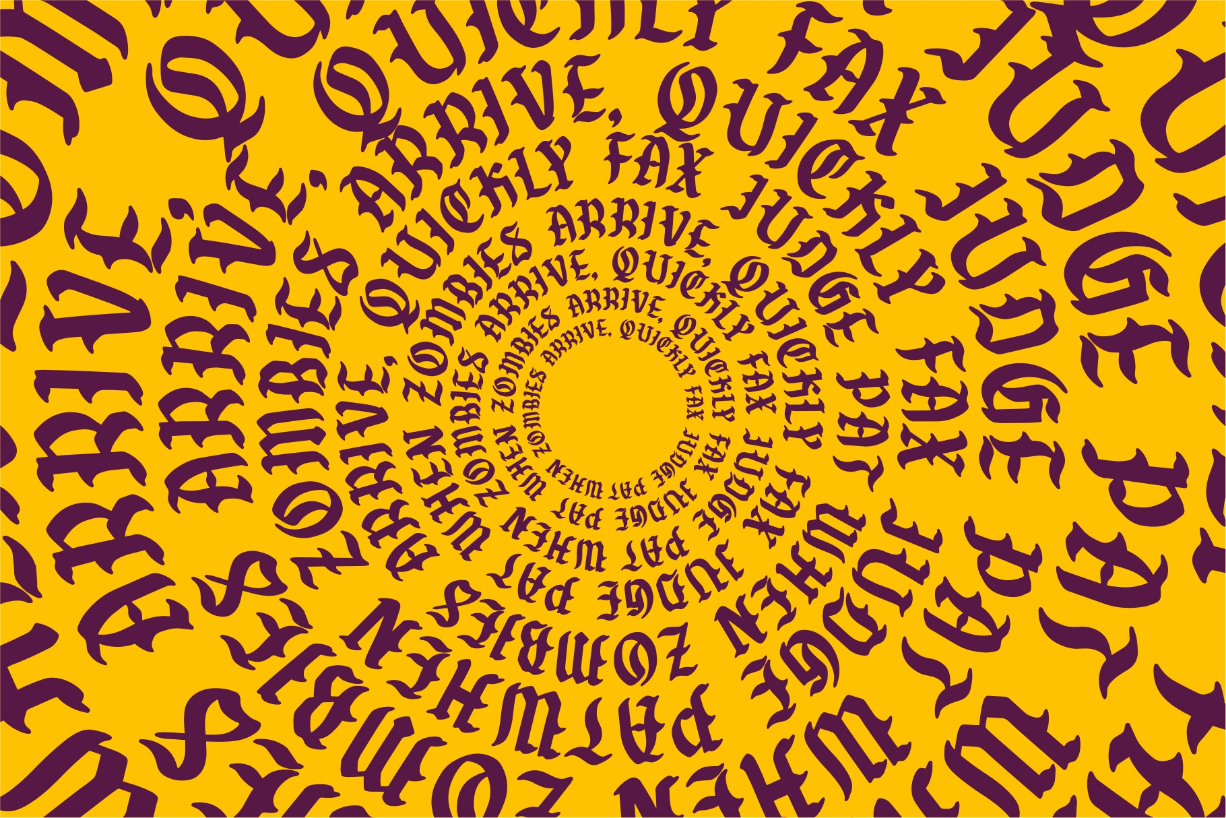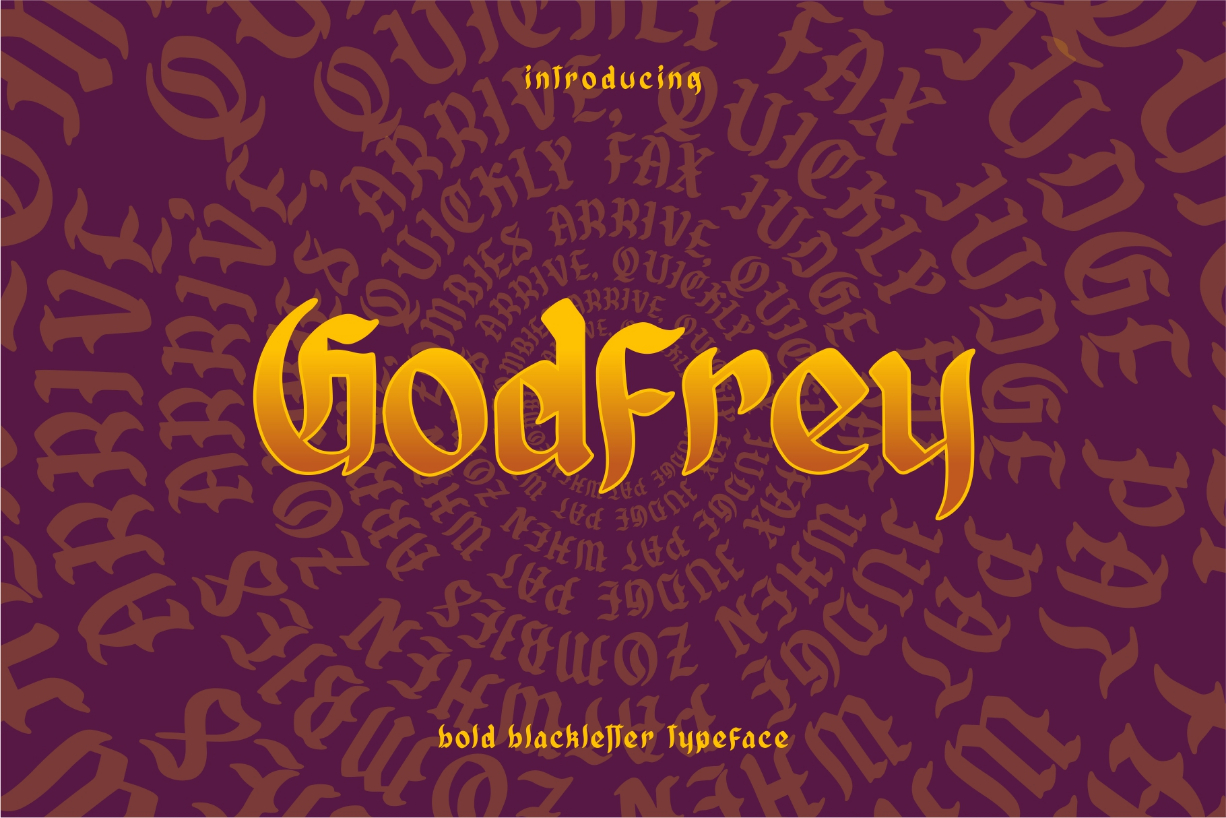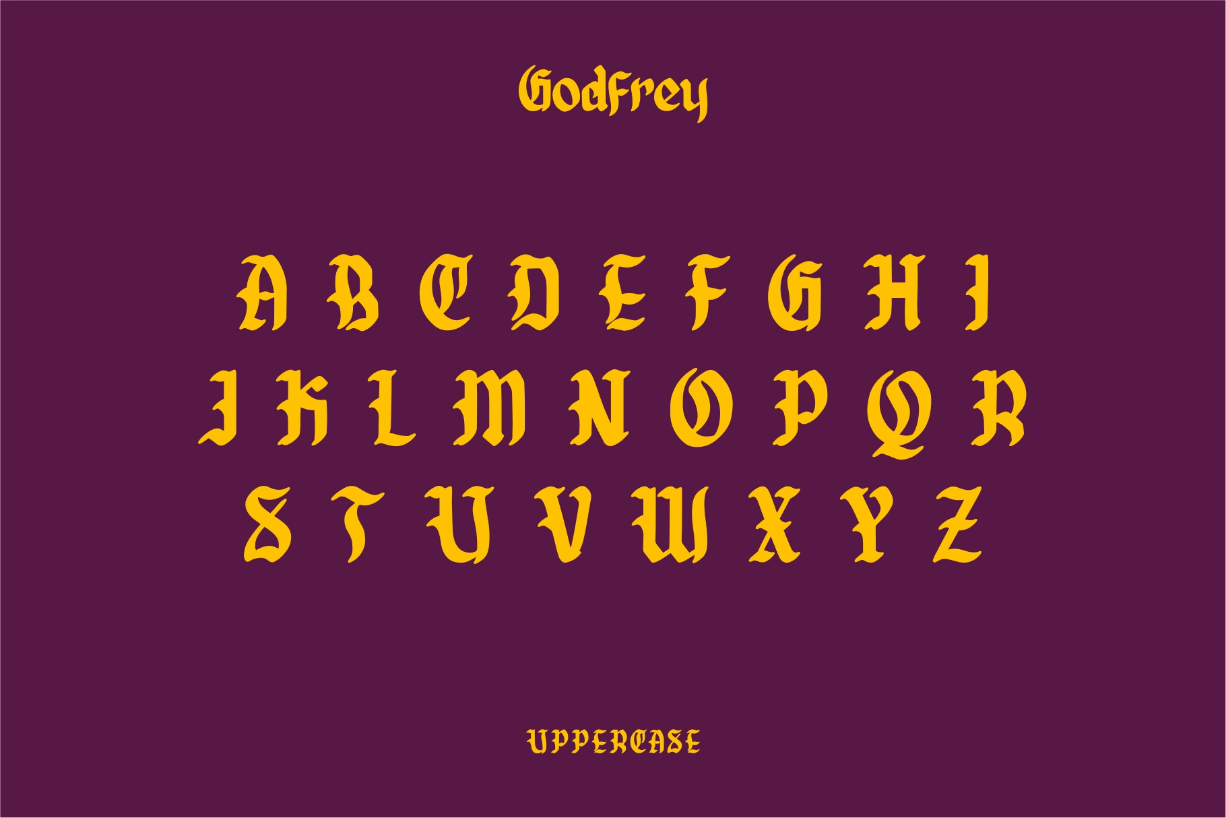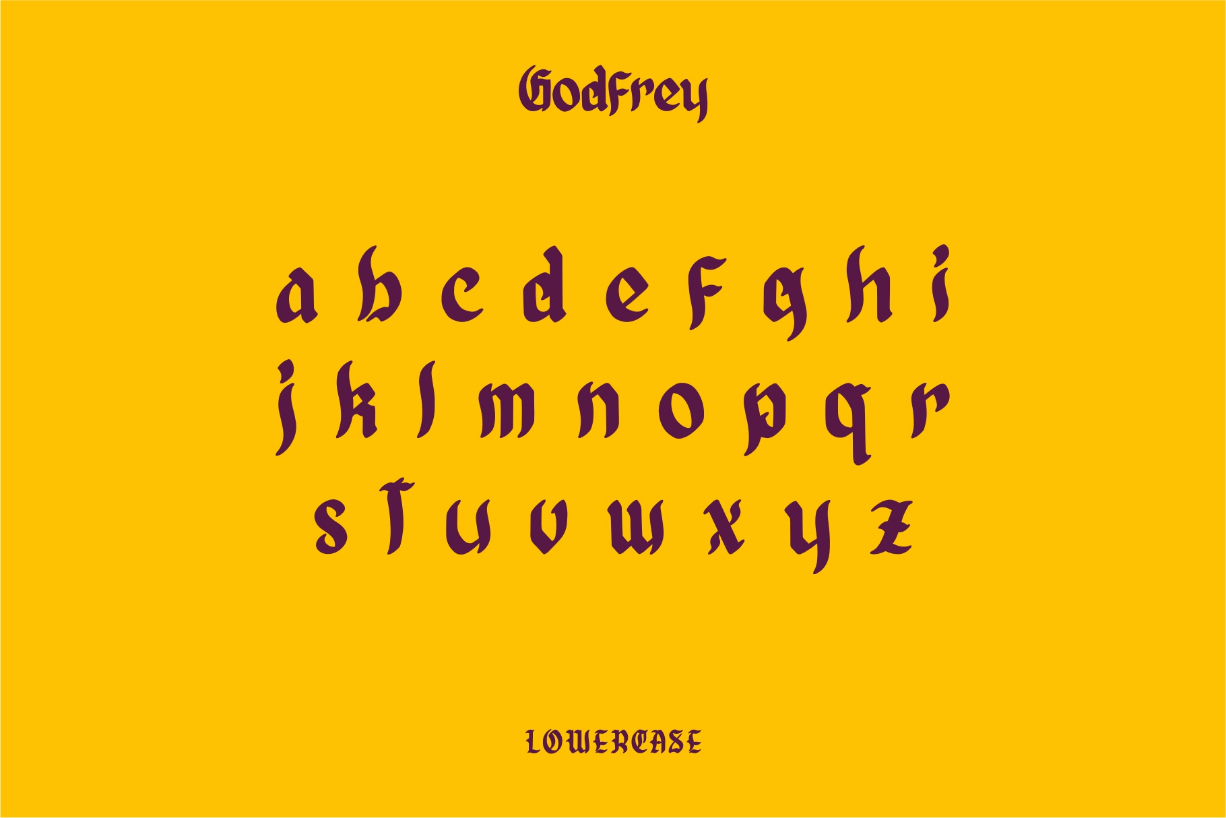
Godfrey Font
About Godfrey Font
The Godfrey is an unique blackletter font. It’s suitable for use in various media such as headlines, posters, magazines, newspapers, t-shirts, labels, and much more!